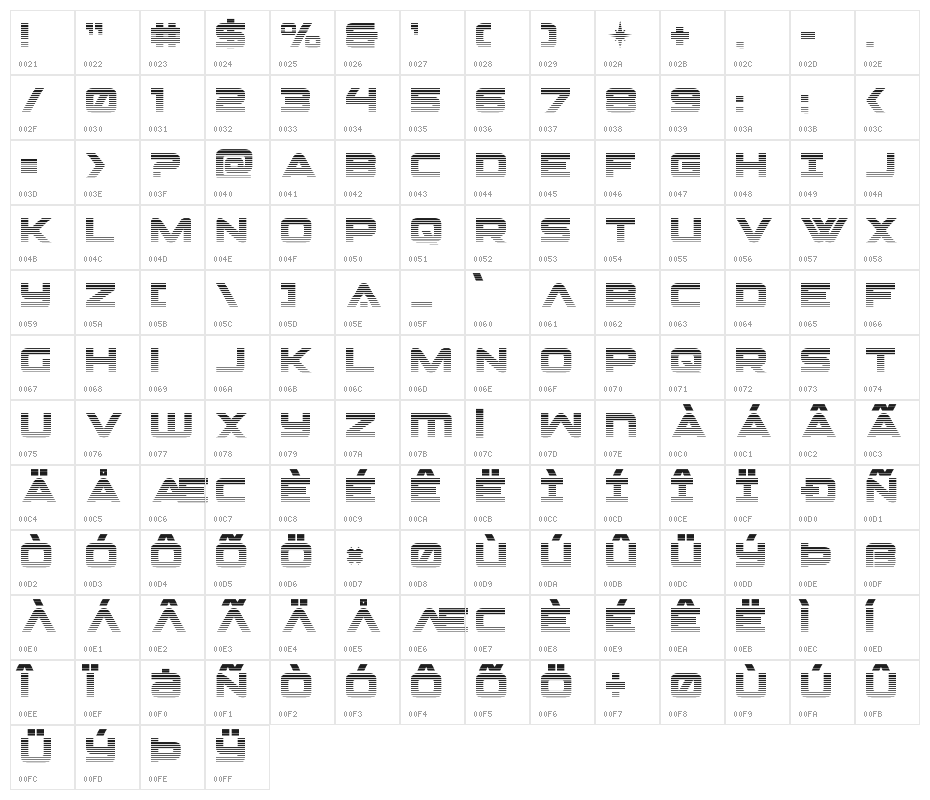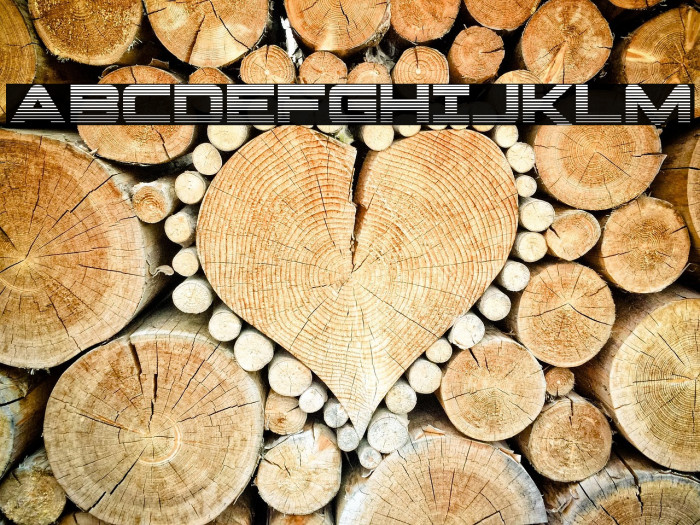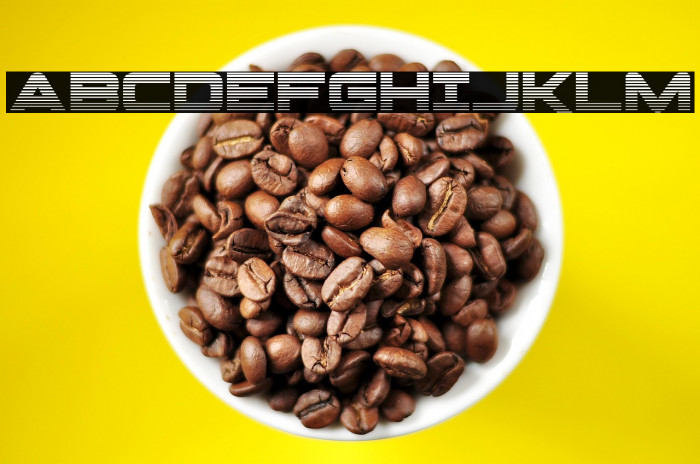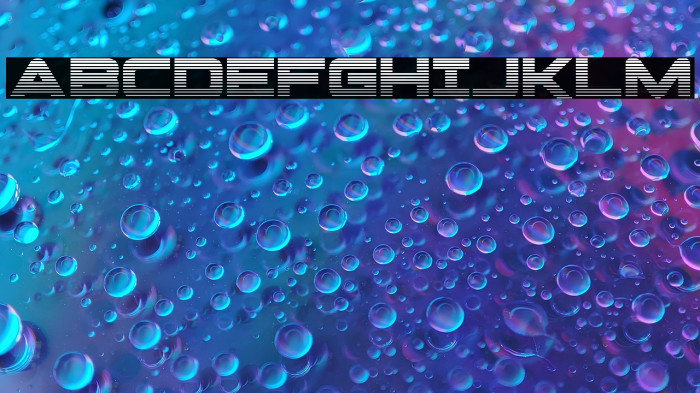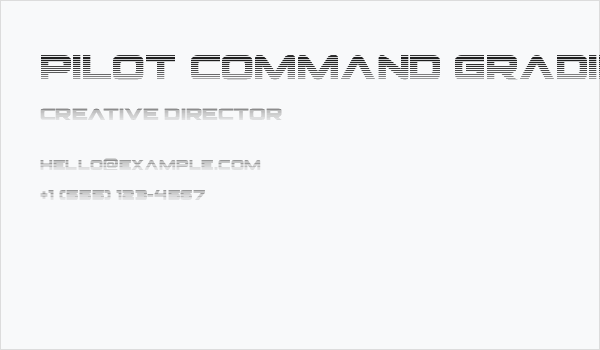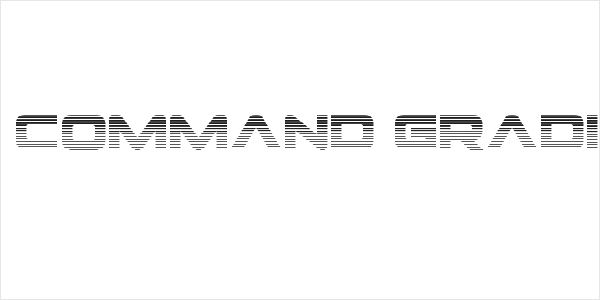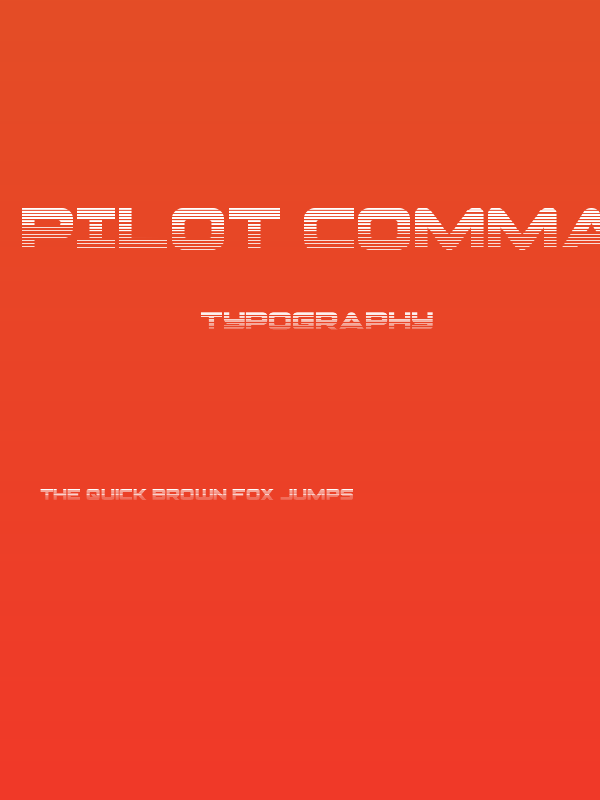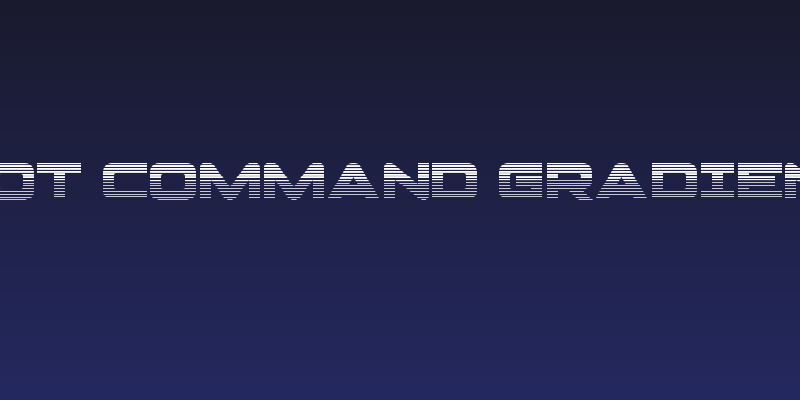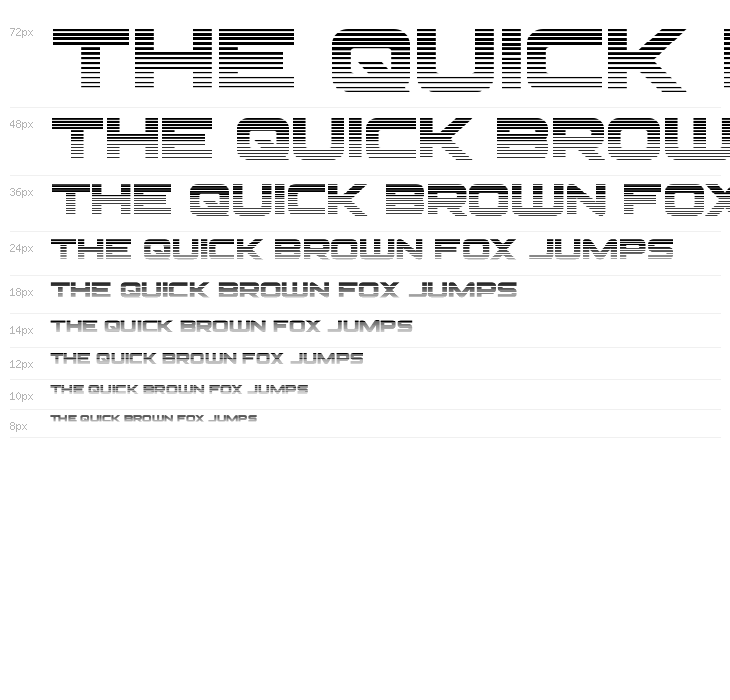
Pilot Command Gradient 2 Font
Pilot Command Gradient 2 Description
This font features a futuristic and digital aesthetic, characterized by its unique horizontal line pattern that forms each character. The design is highly geometric, with sharp angles and a consistent alignment of lines that create a sense of movement and speed. The uppercase and lowercase letters maintain a uniform style, while the numbers and special characters integrate seamlessly into the overall design. This font's distinct appearance makes it ideal for projects that require a modern and technological feel.
| Proposed Projects | Ideal for technology branding, sci-fi movie posters, video game titles, and digital interfaces. |